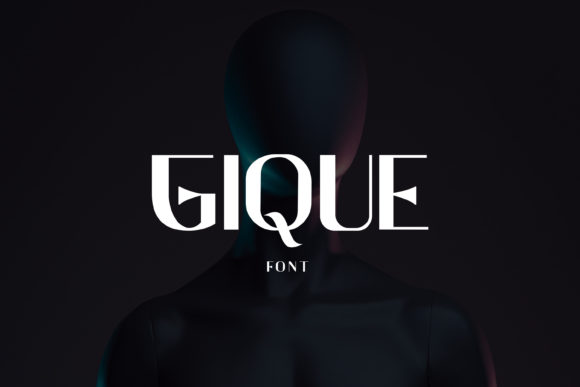
Discover Gique Font, the Ultimate Display Font for Captivating Posters and Headlines. Unleash Your Creativity!
Prepare to be mesmerized by Gique Font, a display font that embodies the essence of futurism, style, and modernity. Its bold characters exude a sleek and sophisticated charm, injecting a touch of elegance into your creative projects.
With Gique Font, you have the power to elevate your posters and headlines to new heights of visual appeal. Its unique and eye-catching design demands attention, leaving an unforgettable impression on your audience. Whether you're creating marketing materials, social media graphics, or website headers, Gique Font is the perfect choice to make a lasting impact.
Immerse yourself in the world of Gique Font and let your imagination run wild. Its distinct and captivating style adds a touch of exclusivity and sophistication to any project. Experience the joy of creating designs that resonate with your audience, leaving them captivated and inspired.
Embrace Gique Font today and unlock a world of creative possibilities. Its versatility and timeless appeal make it an essential tool for any designer seeking to create impactful visuals. Elevate your designs to new levels of excellence with Gique Font, the ultimate choice for captivating and unforgettable creations.